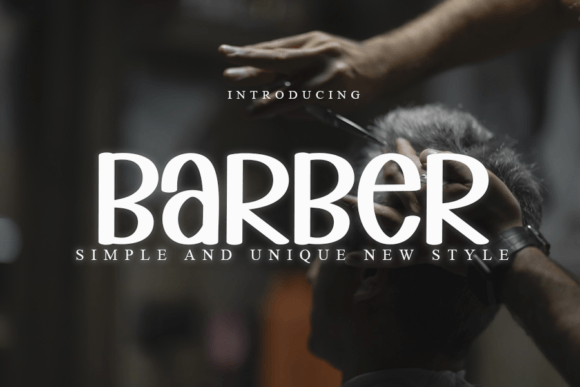
Introducing Barber Font: The Cool and Modern Handwritten Font
Are you tired of using the same old fonts for your designs and crafts? Look no further! Barber Font is here to revolutionize your creative projects with its cool and modern handwritten style. Whether you’re a designer, crafter, or simply someone who loves to create, this font is sure to become your new favorite.
What Makes Barber Font So Special?
Barber Font is a versatile and stylish font that can be used for a wide range of projects. Its modern handwritten style gives it a fresh and trendy feel, making it perfect for:
- Crafts: Use Barber Font to add a personal touch to your handmade crafts, such as cards, gift tags, and scrapbook pages.
- Digital Design: Add a touch of elegance to your digital designs, including social media graphics, presentations, and website headers.
- Greeting Cards: Create beautiful and unique greeting cards for special occasions, such as birthdays, weddings, and holidays.
- Presentations: Make your presentations stand out with Barber Font’s clean and modern style.
Key Features of Barber Font
So, what makes Barber Font so special? Here are some of its key features:
- Handwritten Style: Barber Font has a beautiful, handwritten style that gives it a personal and unique feel.
- Modern and Fresh: The font’s modern style makes it perfect for contemporary designs and projects.
- Versatile: Use Barber Font for a wide range of projects, from crafts to digital design.
- Easy to Read: Despite its handwritten style, Barber Font is easy to read and understand.
Tips for Using Barber Font
Here are some tips for using Barber Font in your projects:
- Pair it with Other Fonts: Experiment with pairing Barber Font with other fonts to create a unique and interesting look.
- Use it for Headings and Titles: Barber Font is perfect for headings and titles, where its modern style can really shine.
- Add a Personal Touch: Use Barber Font to add a personal touch to your projects, such as handmade crafts and greeting cards.
- Experiment with Colors: Try out different colors and color combinations to really make Barber Font stand out.
Why Designers and Crafters Love Barber Font
Designers and crafters love Barber Font for its versatility and style. Here are some reasons why:
- Unique and Creative: Barber Font is a unique and creative font that can help designers and crafters stand out from the crowd.
- Easy to Use: The font is easy to use and can be easily integrated into a wide range of projects.
- High-Quality: Barber Font is a high-quality font that is designed to produce crisp and clear results.
In conclusion, Barber Font is a cool and modern handwritten font that is perfect for designers, crafters, and anyone who loves to create. Its versatile style and ease of use make it a great addition to any project, from crafts to digital design. So why not give Barber Font a try and see how it can elevate your creative projects?